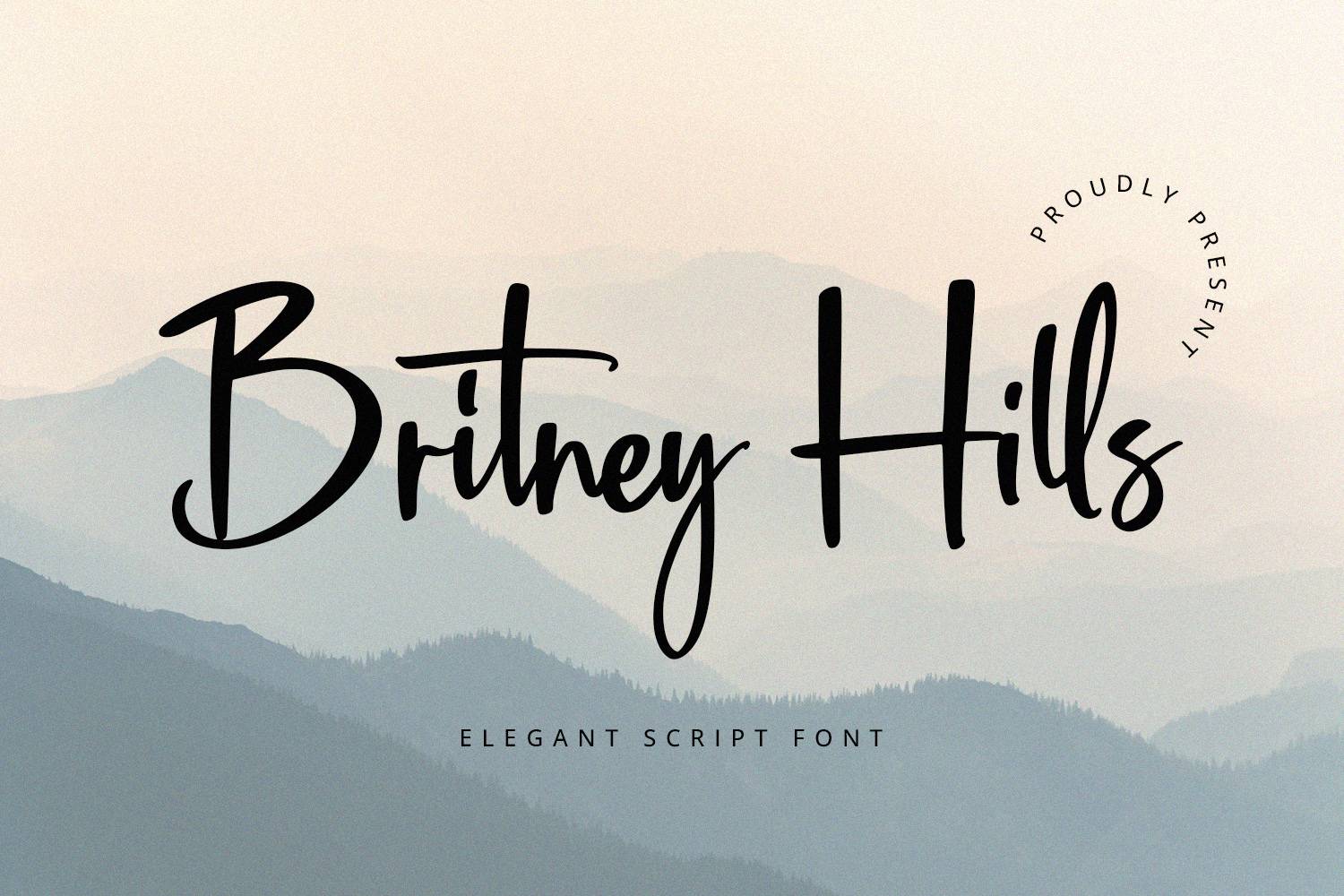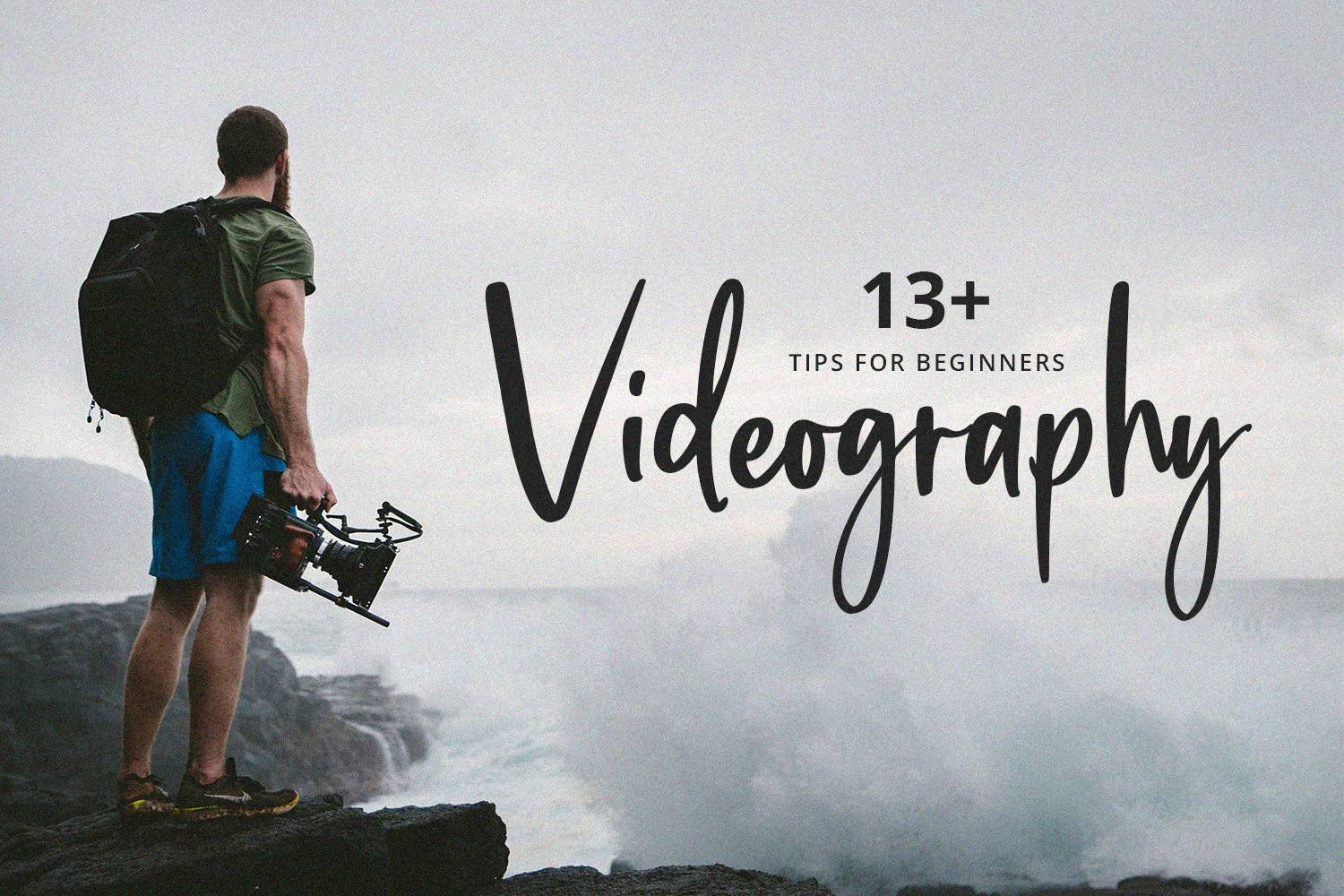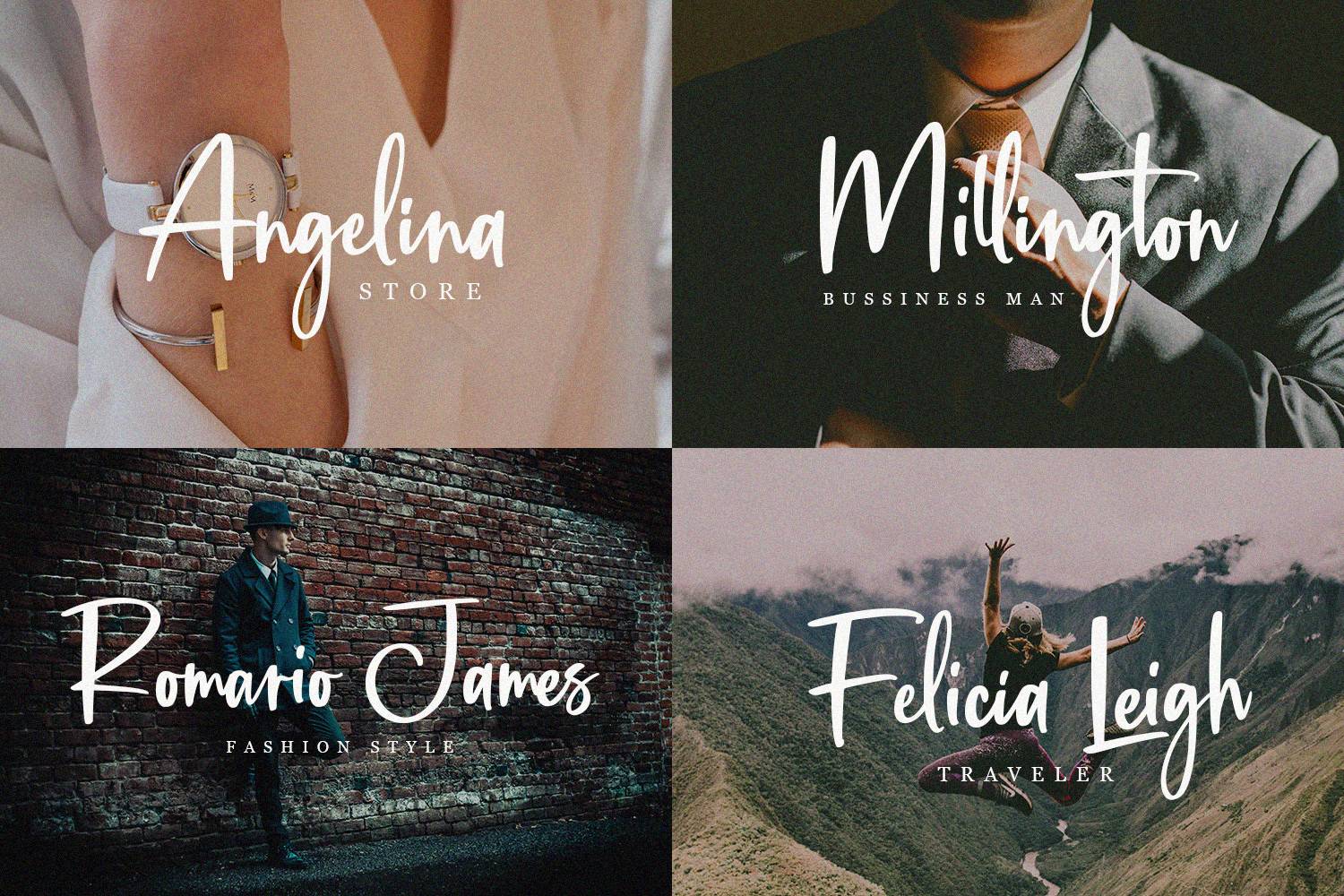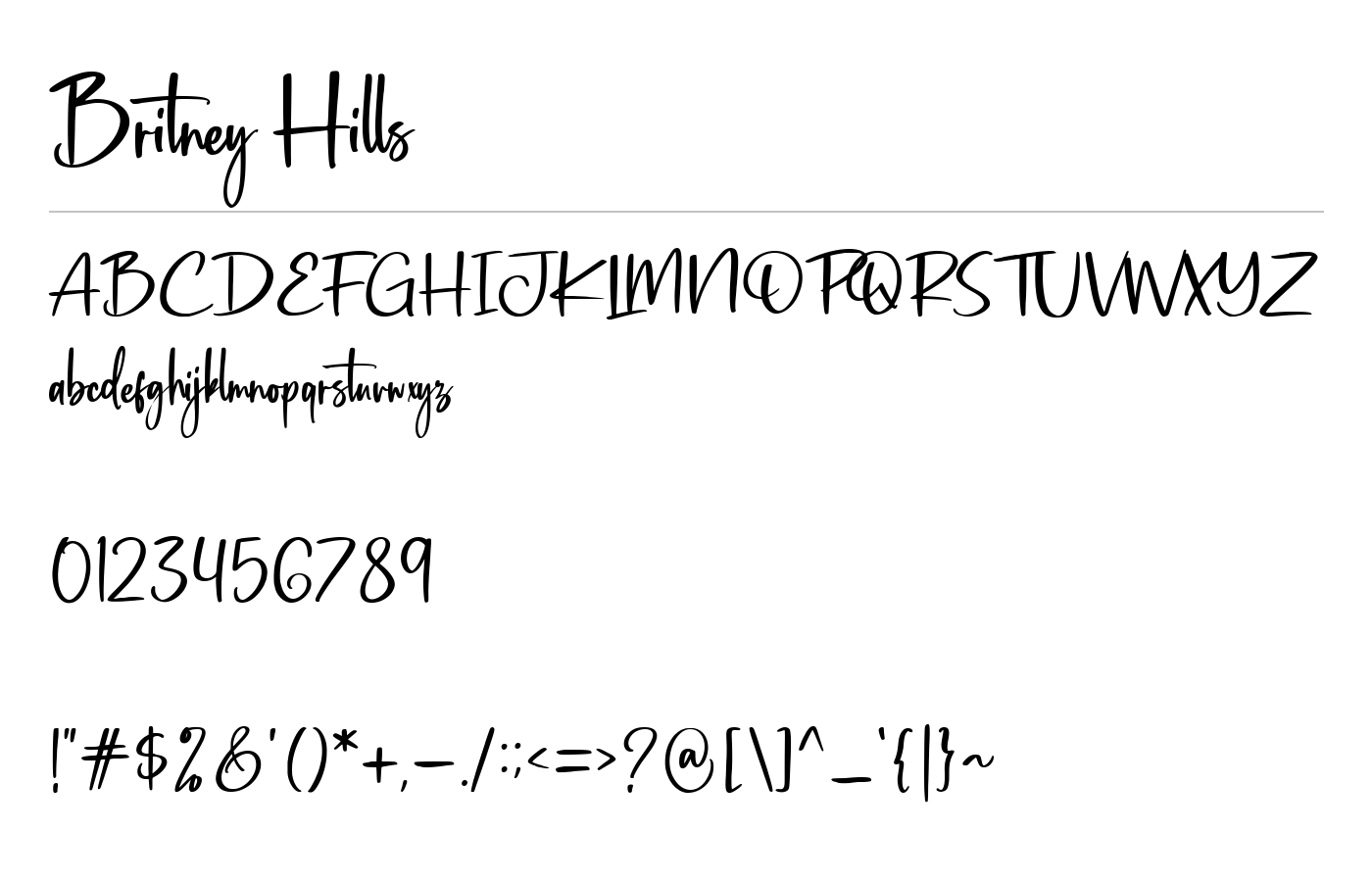
Britney Hills is a playful and elegant script font with a handwritten feel, featuring tall, narrow letterforms and smooth, flowing strokes. Its slender weight and high contrast between thick and thin lines give it a casual yet sophisticated charm, making it perfect for fashion branding, invitations, and creative headlines where a personal touch is desired. This font’s airy, stylish look works beautifully in projects that aim to convey warmth and creativity.
Britney Hills Font
About Britney Hills Font
| Font family | Britney Hills Font |